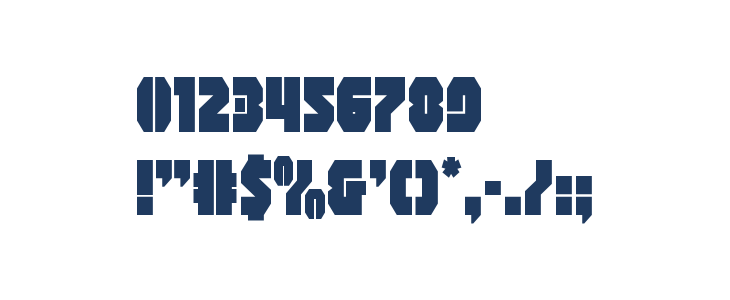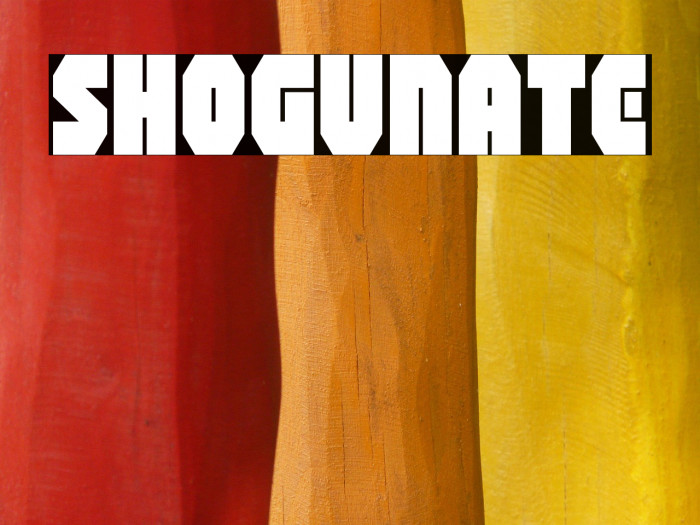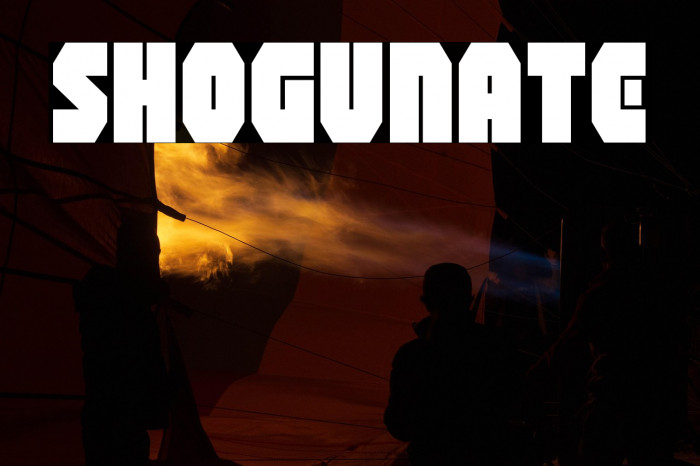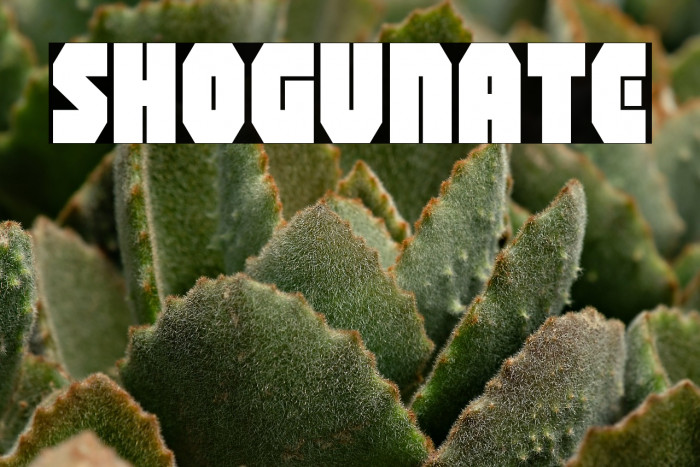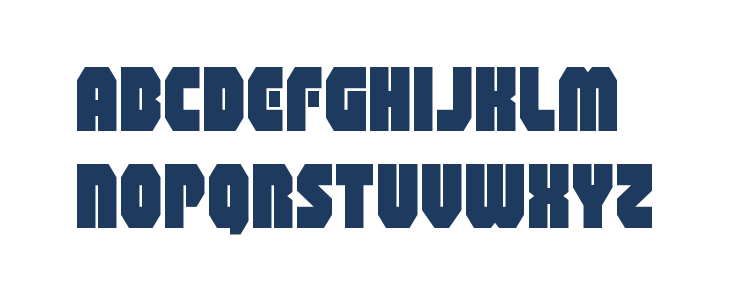
Shogunate Font
Shogunate Description
This font features a bold and geometric design with a strong, imposing presence. The characters are constructed with sharp angles and straight lines, creating a blocky and robust appearance. Each letter and number is distinct, with consistent thickness throughout, giving the font a uniform and cohesive look. The style is reminiscent of traditional Japanese aesthetics, with a modern twist that makes it suitable for contemporary design projects. The special characters maintain the same bold and angular style, ensuring consistency across all glyphs.
| Proposed Projects | Ideal for projects that require a strong visual impact, such as posters, logos, branding, and headlines. It can also be used in video game design or any creative work that seeks to convey a sense of strength and modernity. |